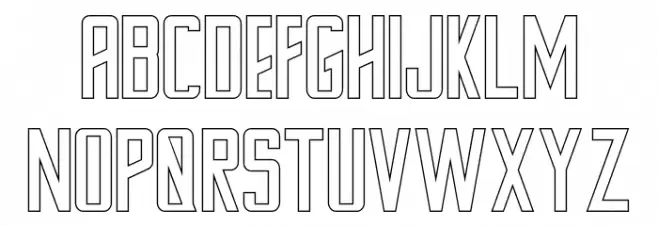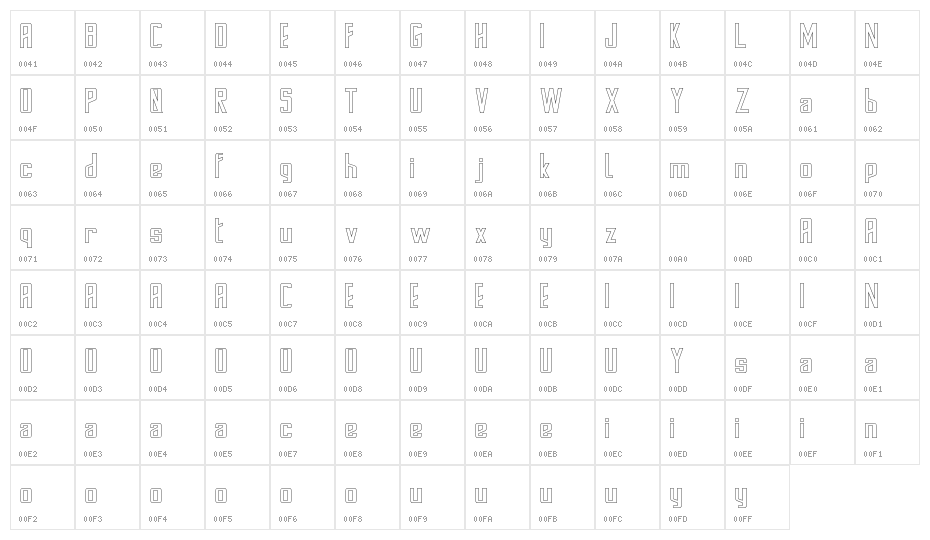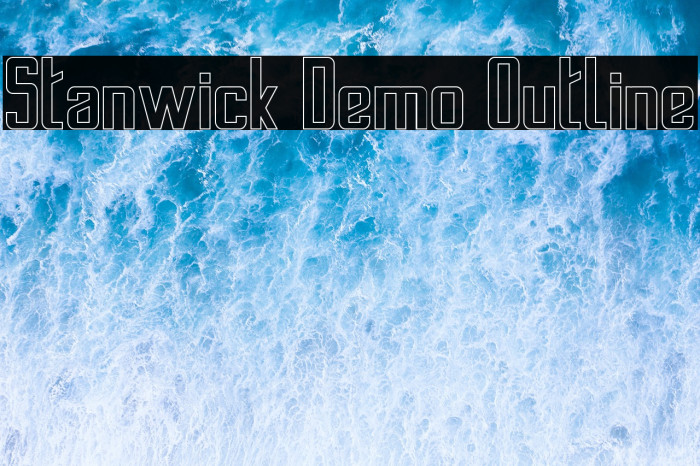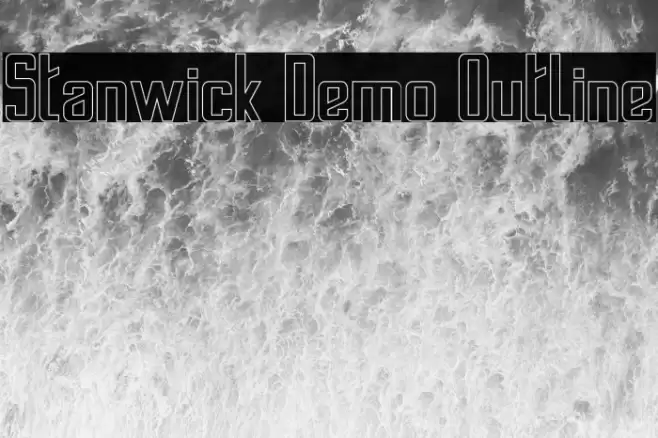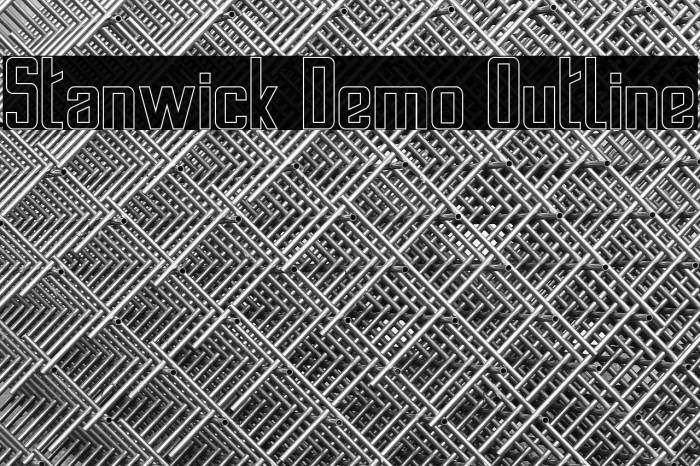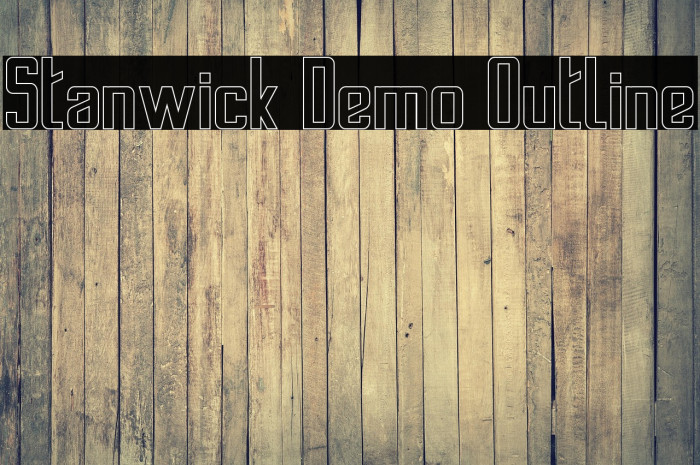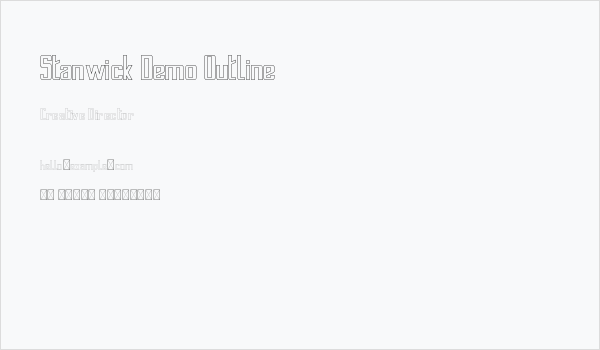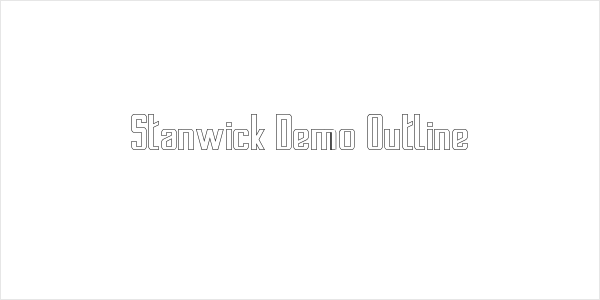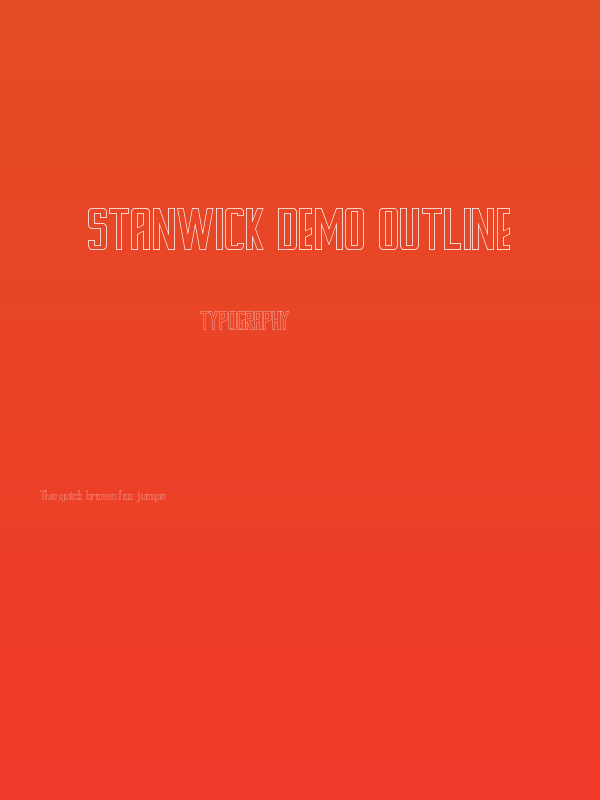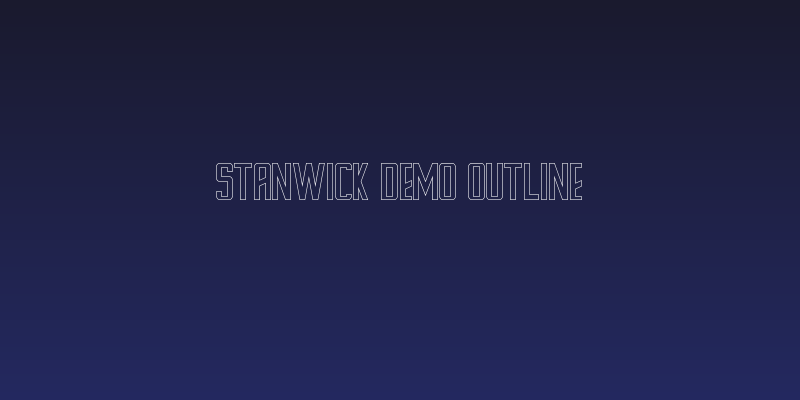
Stanwick Demo Outline Font
Stanwick Demo Outline Description
This font features a distinct outline style with geometric and angular characteristics. The uppercase letters are bold and structured, with a futuristic and technical appearance. The lowercase letters maintain a consistent design, offering a cohesive look across different cases. The numbers and special characters follow the same outlined style, ensuring uniformity throughout. The font's design is clean and modern, making it suitable for projects that require a strong visual impact. Its unique outline form adds a layer of depth and dimension, making it stand out in various design contexts.